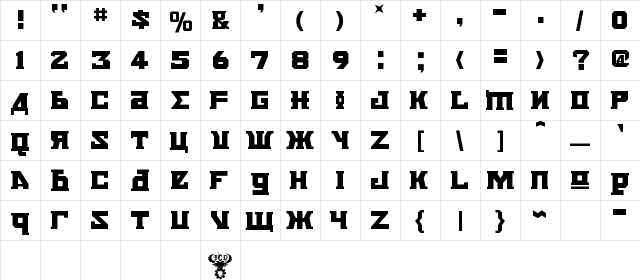
Kremlin Bolshevik Bold
| Designer | BoltCutterDesign |
Design Context for Kremlin Bolshevik Typeface
Kremlin Bolshevik is a composed and adaptable typeface that performs quietly and consistently across a wide range of design contexts. Its bold stroke weight gives it real presence on the page.